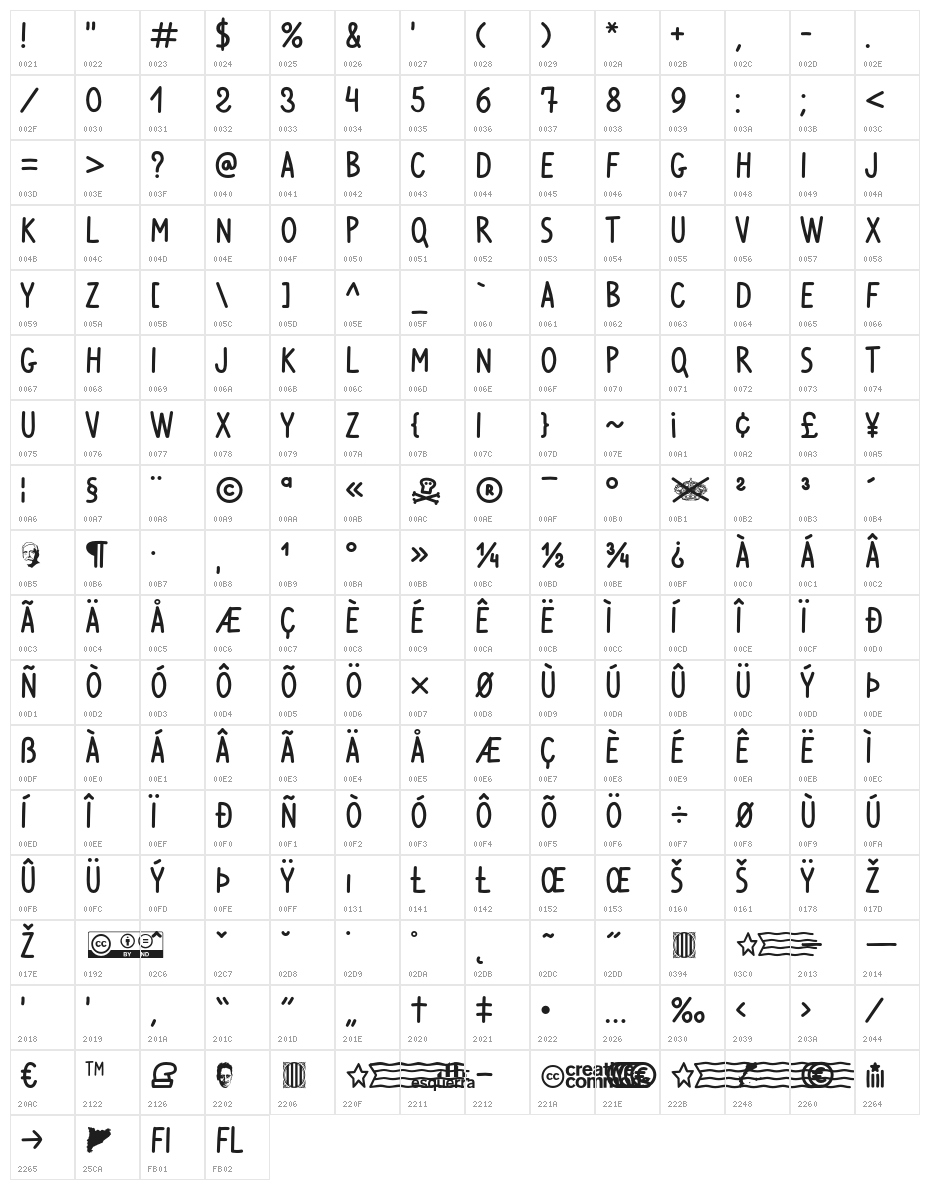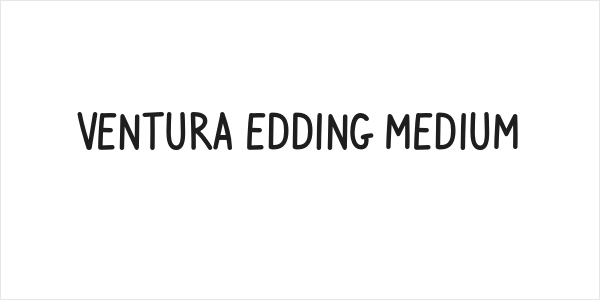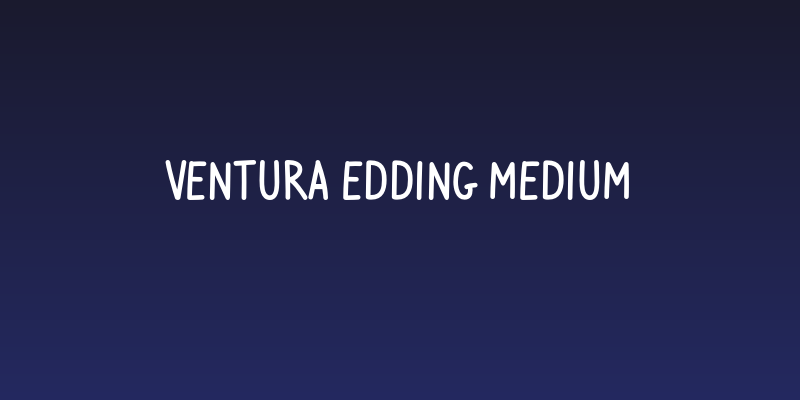
Ventura Edding Medium Font
Ventura Edding Medium Description
This font features a playful and informal style with rounded edges and a handwritten appearance. The characters are bold and slightly condensed, giving them a friendly and approachable look. The strokes are consistent in width, providing a uniform appearance across all characters. The font includes both uppercase and lowercase letters, numbers, and a variety of special characters. Its casual and relaxed style makes it suitable for projects that require a personal touch or a sense of fun.
| Proposed Projects | Ideal for children's books, greeting cards, casual branding, and social media graphics. |